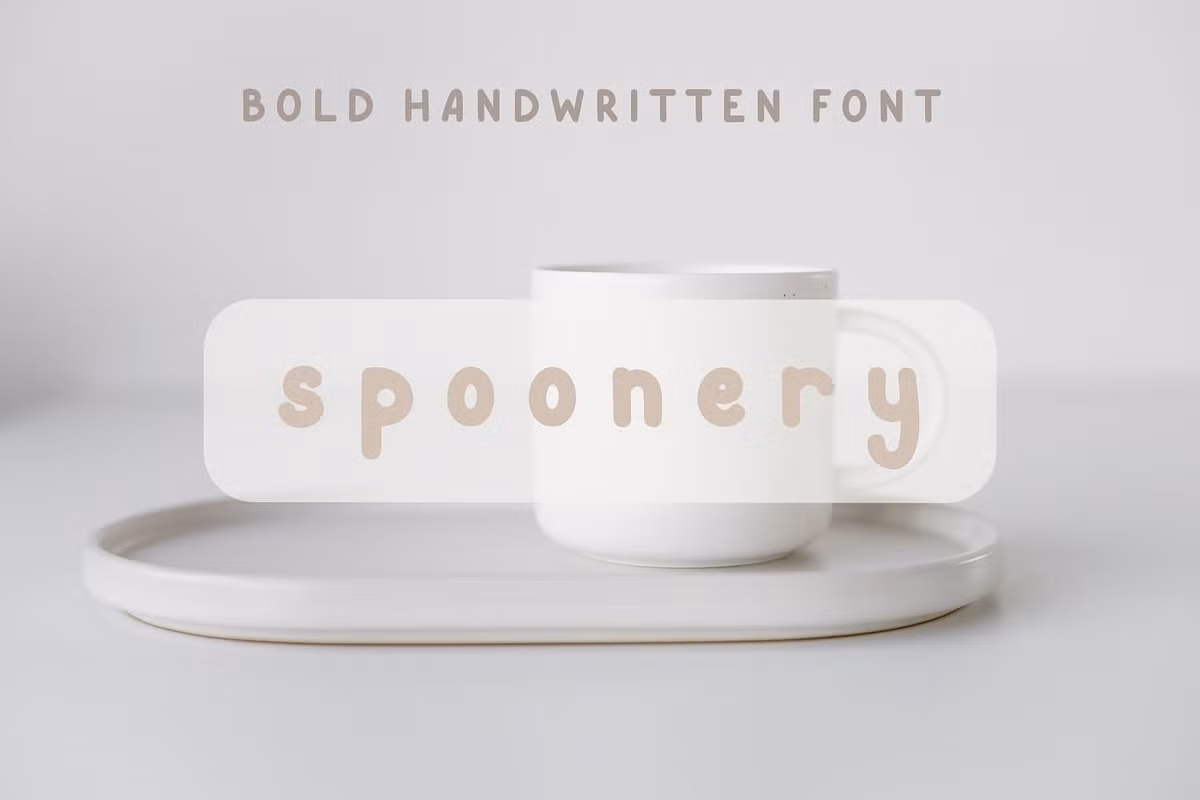
Spoonery Bold Handwritten Font Free Download
Spoonery Bold Handwritten Font Free Download is a fun, chunky, and expressive script typeface that brings a handcrafted personality to your designs. Please note: you must purchase this font for commercial use, but you can test it through a free download. With its bold strokes, casual curves, and playful charm, Spoonery is perfect for logo design, product packaging, cafe menus, social media posts, and creative branding projects.
This font adds a warm, friendly vibe to any layout—ideal for creatives looking to combine approachability with standout style. Whether you're designing for food, lifestyle, or handmade goods, Spoonery Bold Handwritten Font Free Download delivers bold character with a personal touch. Fully compatible with Adobe Illustrator, Photoshop, Canva, and more. Download it today for personal use and make your typography pop with the lively spirit of Spoonery.